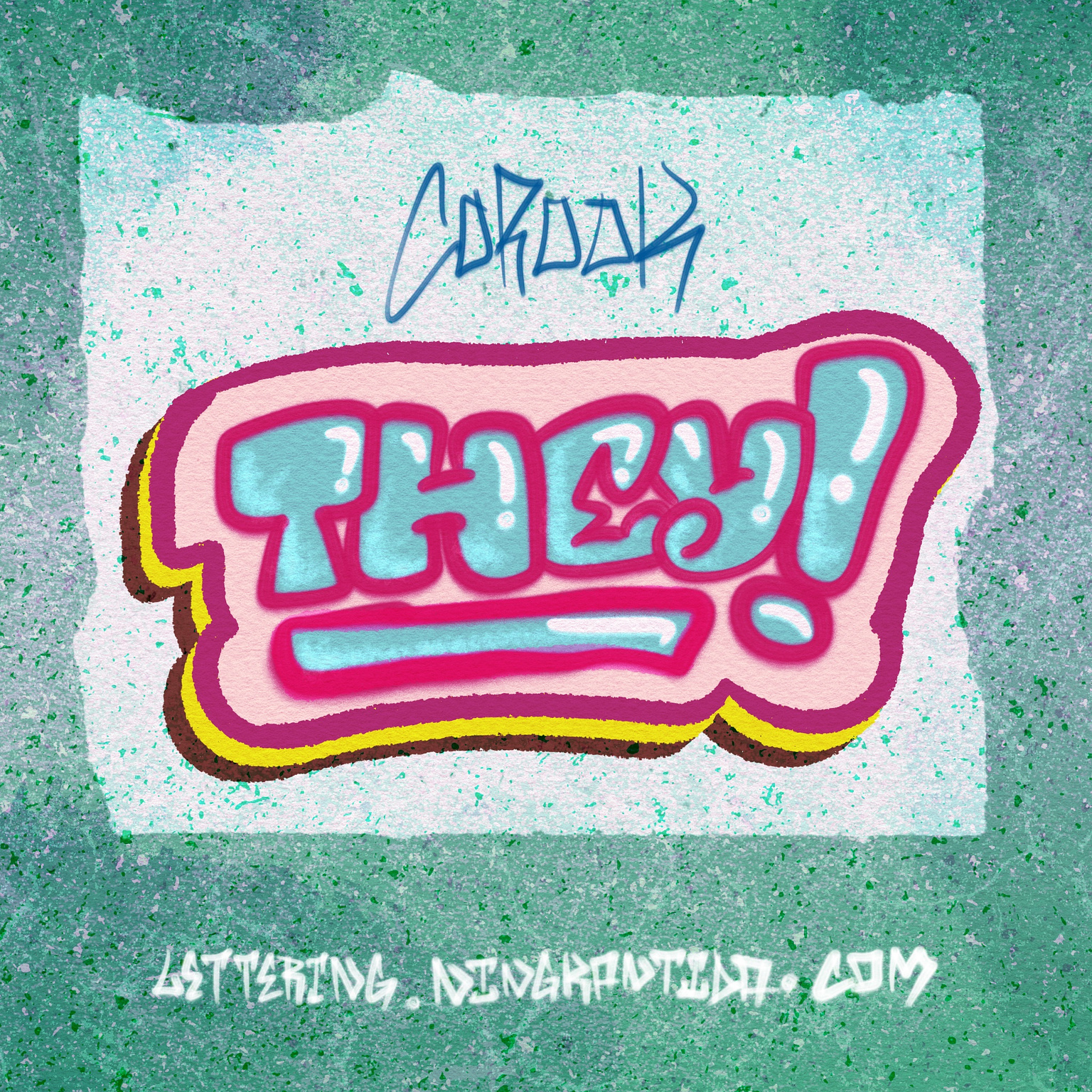
Pride Month Music 10-THEY! by corook
As we approach the end of Pride Month, I’m creating lettering pieces celebrating music related to LGBTQIA+ community. My goal is to expose people to good music and artists while also help bringing the community filled with diversity together, since music is like a universal language that can touch anyone’s heart.
In my opinion, They! by corook is the perfect song for anyone wanting to come out and tell everyone they prefer the pronouns They/Them. I truly love this line: ā€œI’m just a little more me in the middle.ā€ To me, this lyric beautifully captures the essence of being non-binary and non-conforming, expressing how identities can exist across a spectrum rather than within rigid categories. And this shade of spectrum is what makes us different yet so unique.
What makes this song special is how it can be a good introduction for the concept of being non-binary to those who may find it difficult to understand. No matter how challenging it is for you, you should never disrespect someone’s request (such as using They/Them pronouns in this case) or their existence, just because it feels confusing to understand. Even if you still don’t fully grasp it, that’s okay as long as you remain open-minded and willing to see the world as a spectrum instead of a box.
However, what I love most about ā€œThey!ā€ is its emphasis on patience—both for ourselves as we navigate our identities, and for others as they learn to understand and support us. Mistakes and frustrations are natural, but what matters is the intention to do better and to keep growing.
For the lettering in my design, I aimed for a sticker style, though in hindsight, a ā€œName Tagā€ design with ā€œMy Pronoun is They/Themā€ could have worked better. I added a touch of graffiti style to the lettering, and since I chose a sticker theme, I made the background resemble a wall board with paper and a sticker to tie everything together.